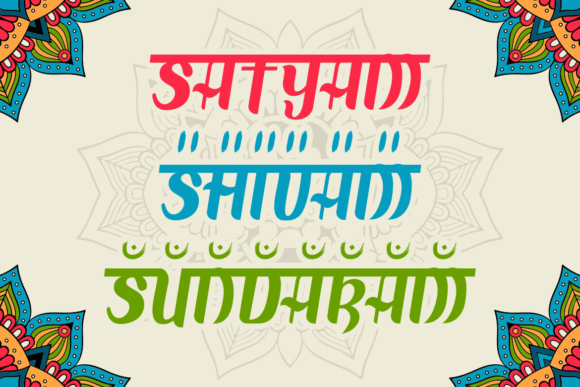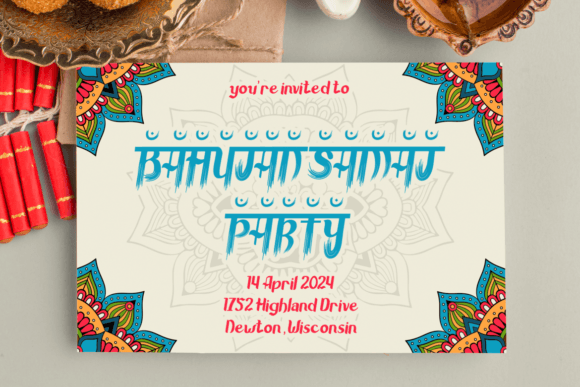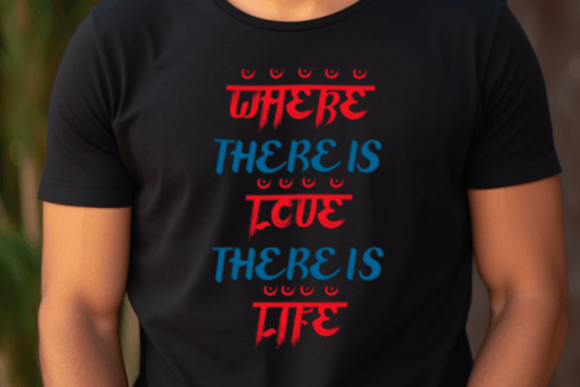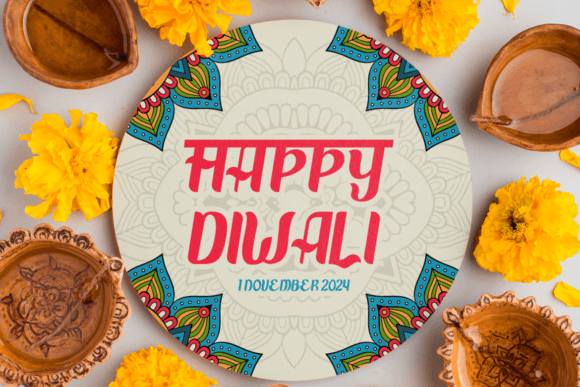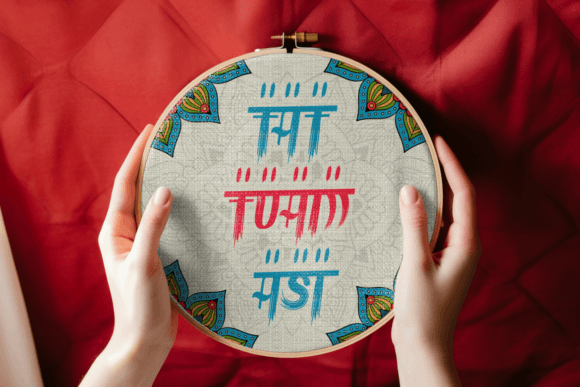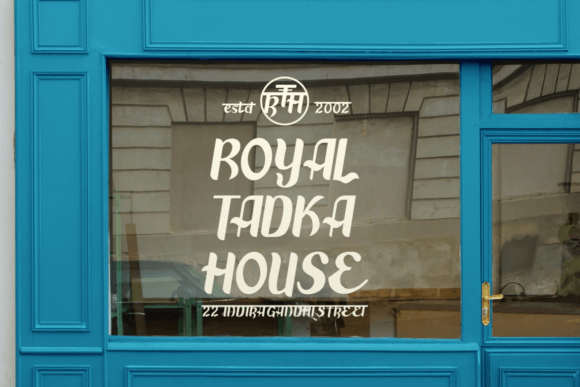
Introducing Advait – Sansekerta Font: A Cultural Masterpiece for Designers
In the world of typography, few fonts manage to capture the essence of cultural heritage while exuding modernity. Advait – Sansekerta Font is one such exceptional typeface that beautifully blends traditional Indian and Javanese aesthetics with contemporary design elements. Inspired by the classical and ethnic beauty of Sanskrit art, Advait offers a unique and stunning display font that is perfect for designers looking to infuse their projects with a touch of cultural richness.
The Inspiration Behind Advait
Advait – Sansekerta Font draws its inspiration from the ancient and rich cultural heritage of India and Java. The font’s creator aimed to encapsulate the essence of Sanskrit aesthetics, which is characterized by intricate details, harmonious curves, and a sense of grandeur. The result is a typeface that not only pays homage to traditional art but also brings a fresh and modern perspective to the table.
Key Features of Advait Font
Advait – Sansekerta Font boasts several key features that make it a standout choice for designers:
- Bold and Artistic Strokes: The font features bold, artistic strokes that give it a distinctive and eye-catching appearance. This makes it perfect for headlines, titles, and any design element that needs to make a statement.
- Intricate Details: The intricate details in Advait are inspired by traditional Sanskrit art. These details add a layer of sophistication and elegance to any design, making it suitable for high-end branding and luxury projects.
- Harmonious Curves: The font’s harmonious curves contribute to its aesthetic appeal, creating a sense of fluidity and balance. This makes Advait not only visually appealing but also highly legible.
- Versatility: Advait – Sansekerta Font is incredibly versatile, making it suitable for a wide range of applications. From formal designs like business cards and wedding invitations to creative projects such as posters and children’s books, Advait adapts seamlessly.
Applications of Advait Font
The versatility of Advait – Sansekerta Font makes it an excellent choice for various design projects. Here are some of the ideal applications for this stunning typeface:
- Logos and Branding: The unique and sophisticated design of Advait makes it perfect for logos and branding projects. It helps create a distinctive identity that stands out in the market.
- Wedding Invitations and Stationery: Add an ethnic touch to your wedding invitations, greeting cards, and other stationery with Advait. Its elegant design ensures that your invitations are memorable and beautiful.
- Packaging Design: For product packaging, Advait offers a way to make your products stand out on the shelves. Its bold and artistic strokes draw attention, making it ideal for luxury packaging.
- Posters and Flyers: Whether you’re promoting an event or a product, Advait can be used to create eye-catching posters and flyers that capture the audience’s attention.
- Children’s Books and Magazines: The font’s unique style also makes it suitable for children’s books and magazines, adding a playful yet sophisticated touch to your content.
Why Choose Advait Font?
Choosing Advait – Sansekerta Font for your design projects comes with several benefits:
- Cultural Significance: By using Advait, you’re not just choosing a font; you’re incorporating a piece of cultural heritage into your design.
- Uniqueness: In a sea of generic fonts, Advait stands out due to its unique blend of traditional and modern design elements.
- Versatility: Its adaptability to various design projects makes it a valuable addition to any designer’s toolkit.
- Elegance and Sophistication: Advait adds an unparalleled level of elegance and sophistication to any design, making it perfect for projects that require a touch of class.
Advait – Sansekerta Font is a cultural masterpiece that brings the beauty of Indian and Javanese heritage to the world of typography. Its unique blend of traditional elements and modern design makes it a standout choice for designers looking to add an ethnic touch to their projects. With its bold strokes, intricate details, and harmonious curves, Advait is not just a font but a statement piece that can elevate any design. Whether you’re working on logos, branding, packaging, or creative projects, Advait – Sansekerta Font is an excellent choice for those who seek elegance, sophistication, and a touch of cultural richness.